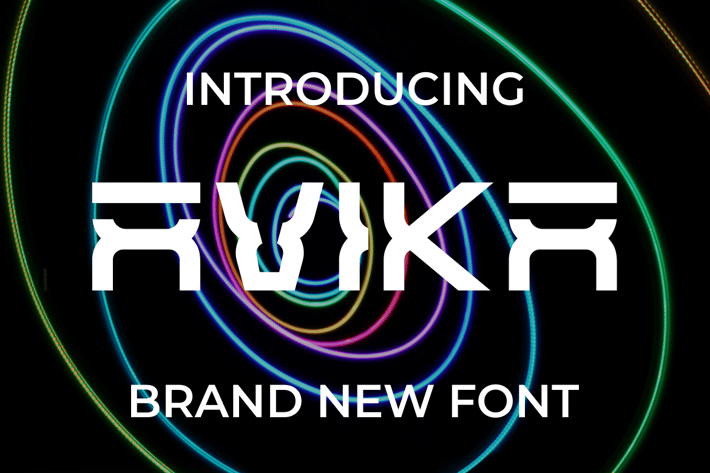
AVIKA Font
Introducing our new product AVIKA Font - Modern Font
AVIKA Font - Modern Font is a bold and authentic display font. The font is suitable for any branding project like logo, t-shirt printing, esport, and many more. outstanding in a wide range of contexts.